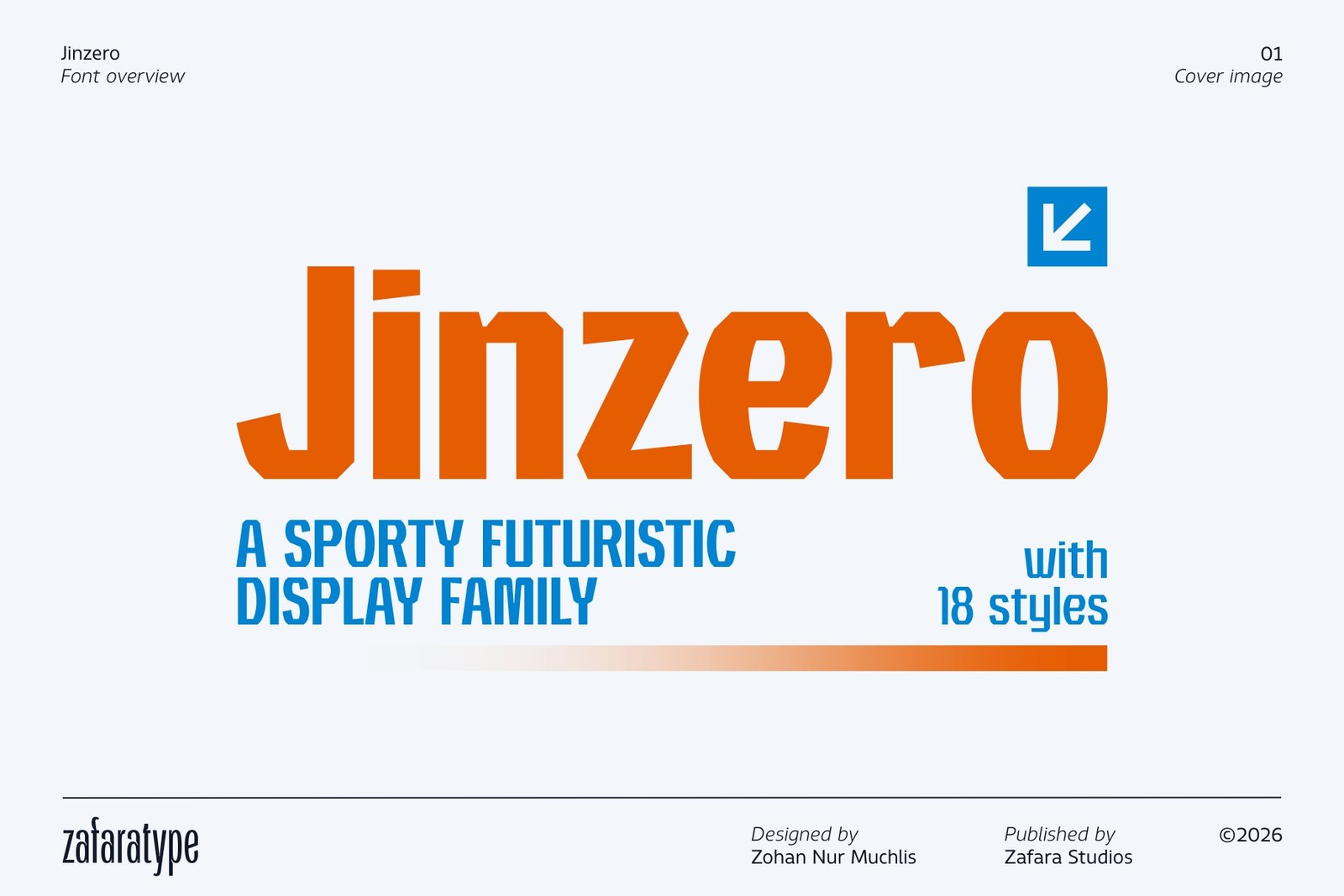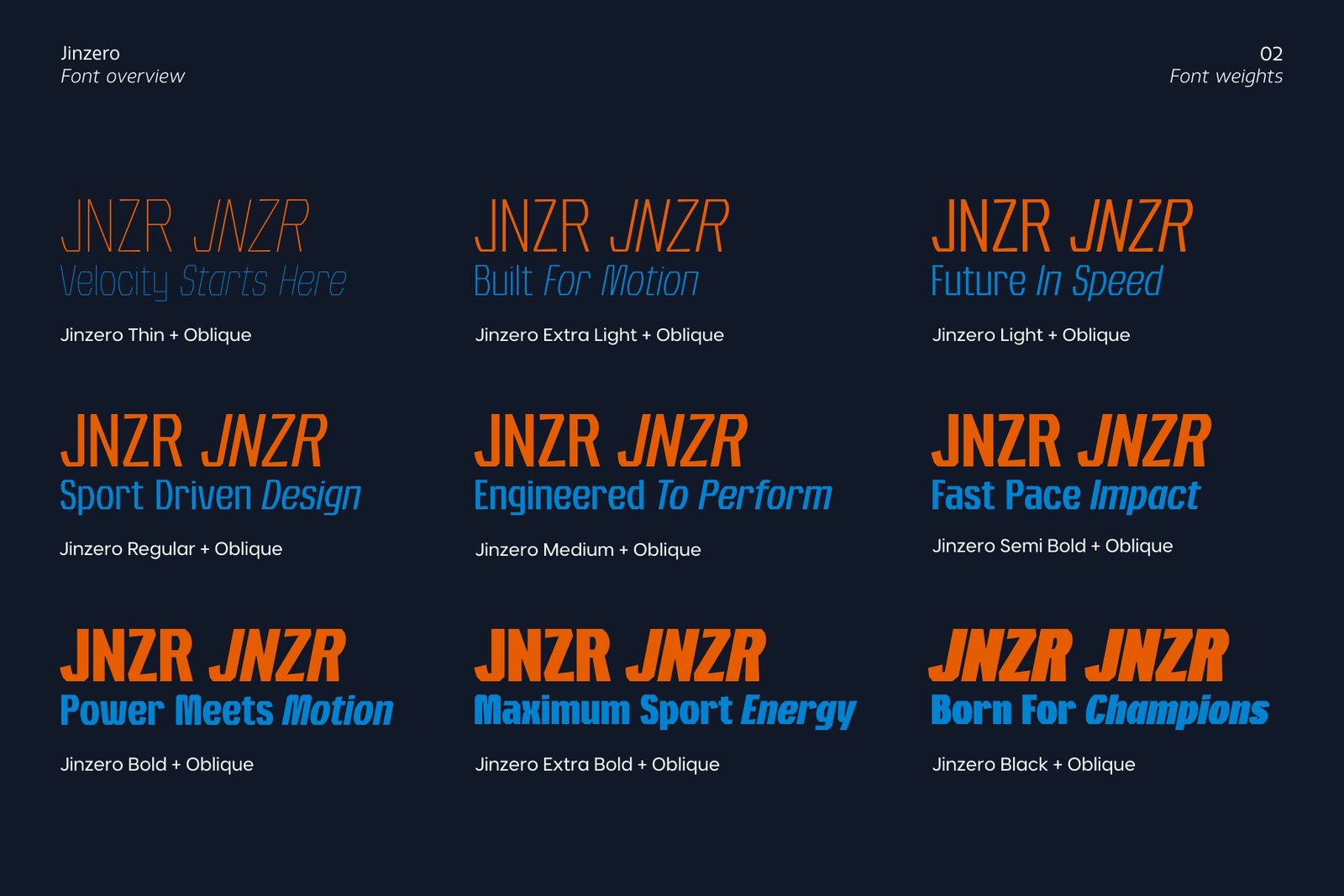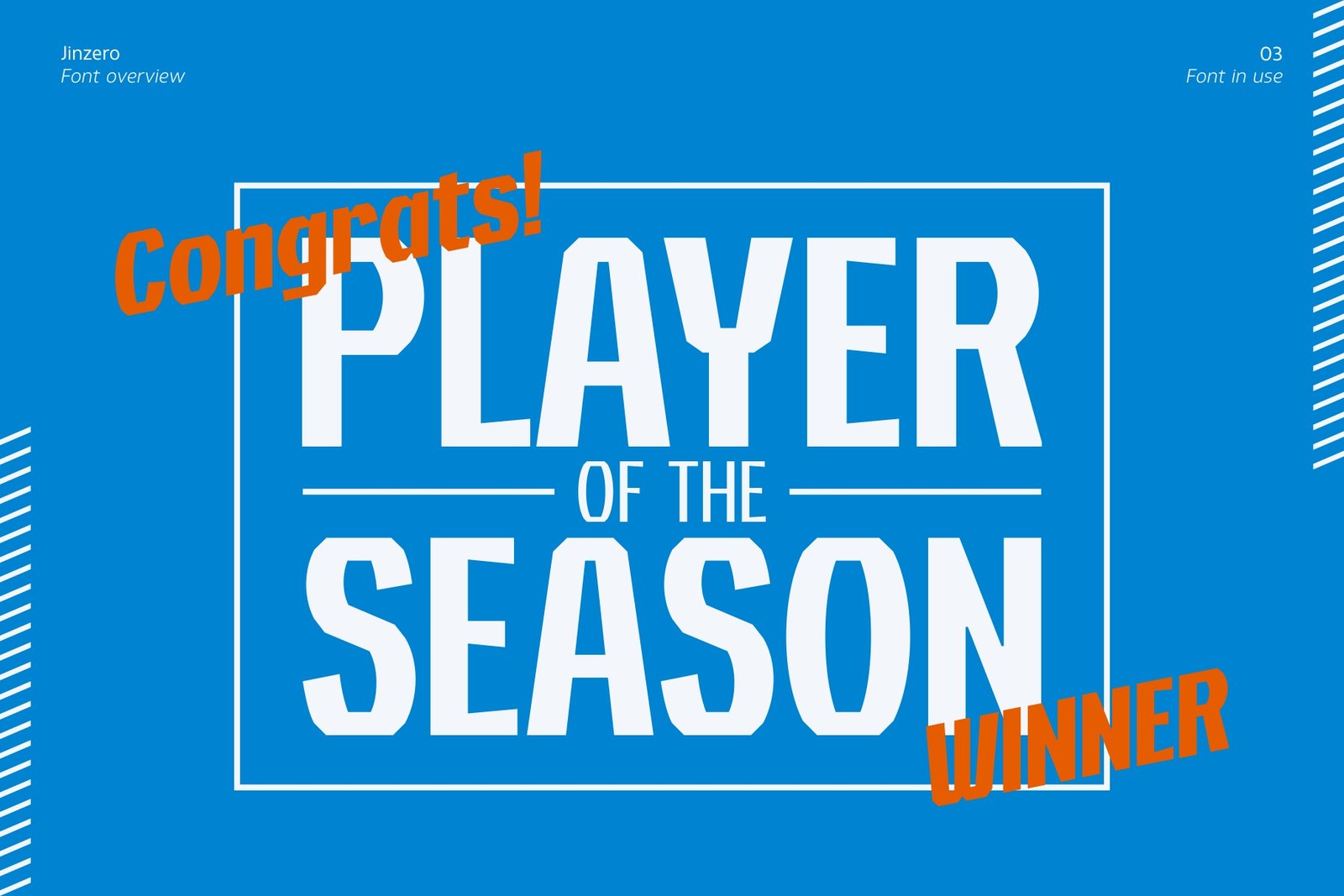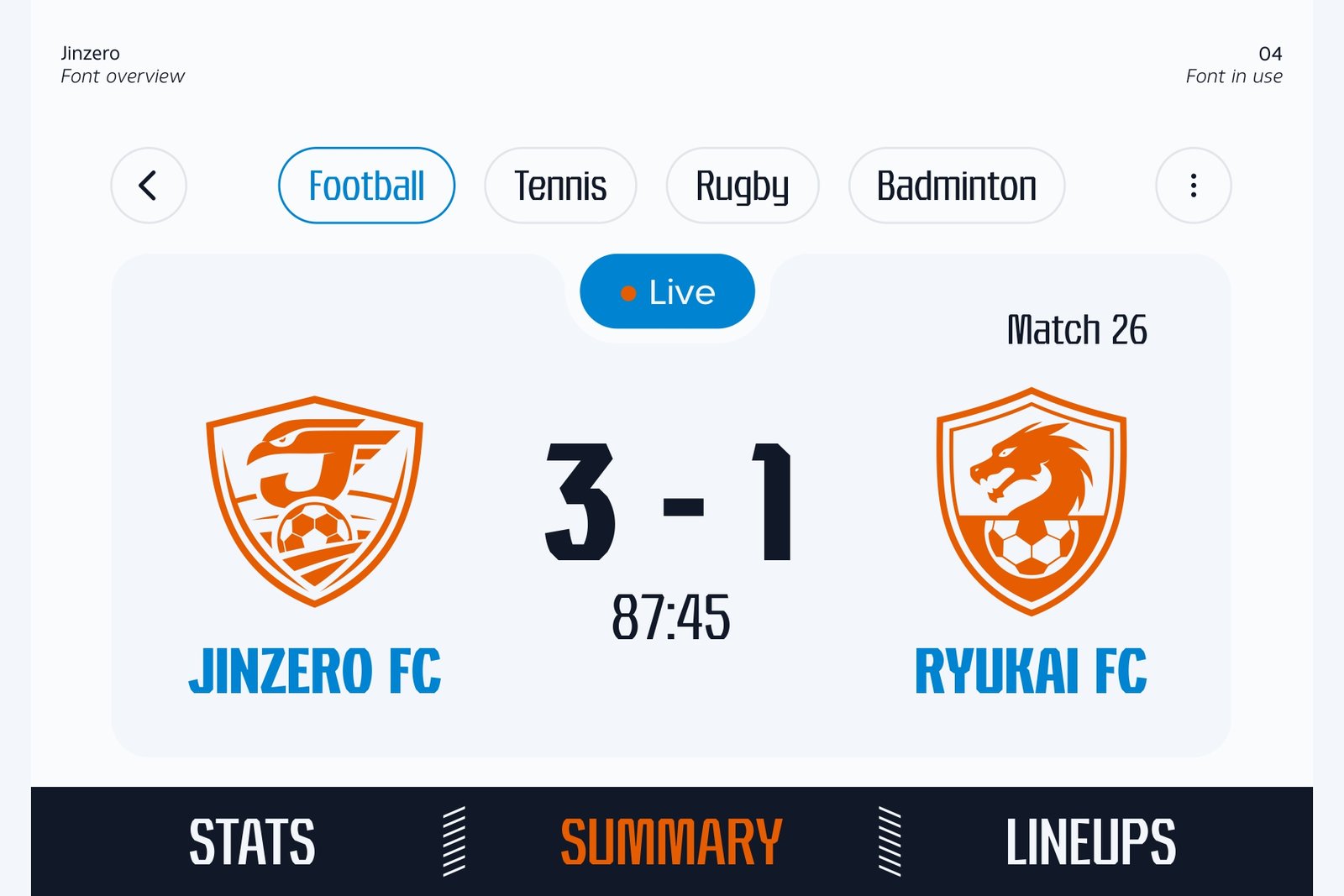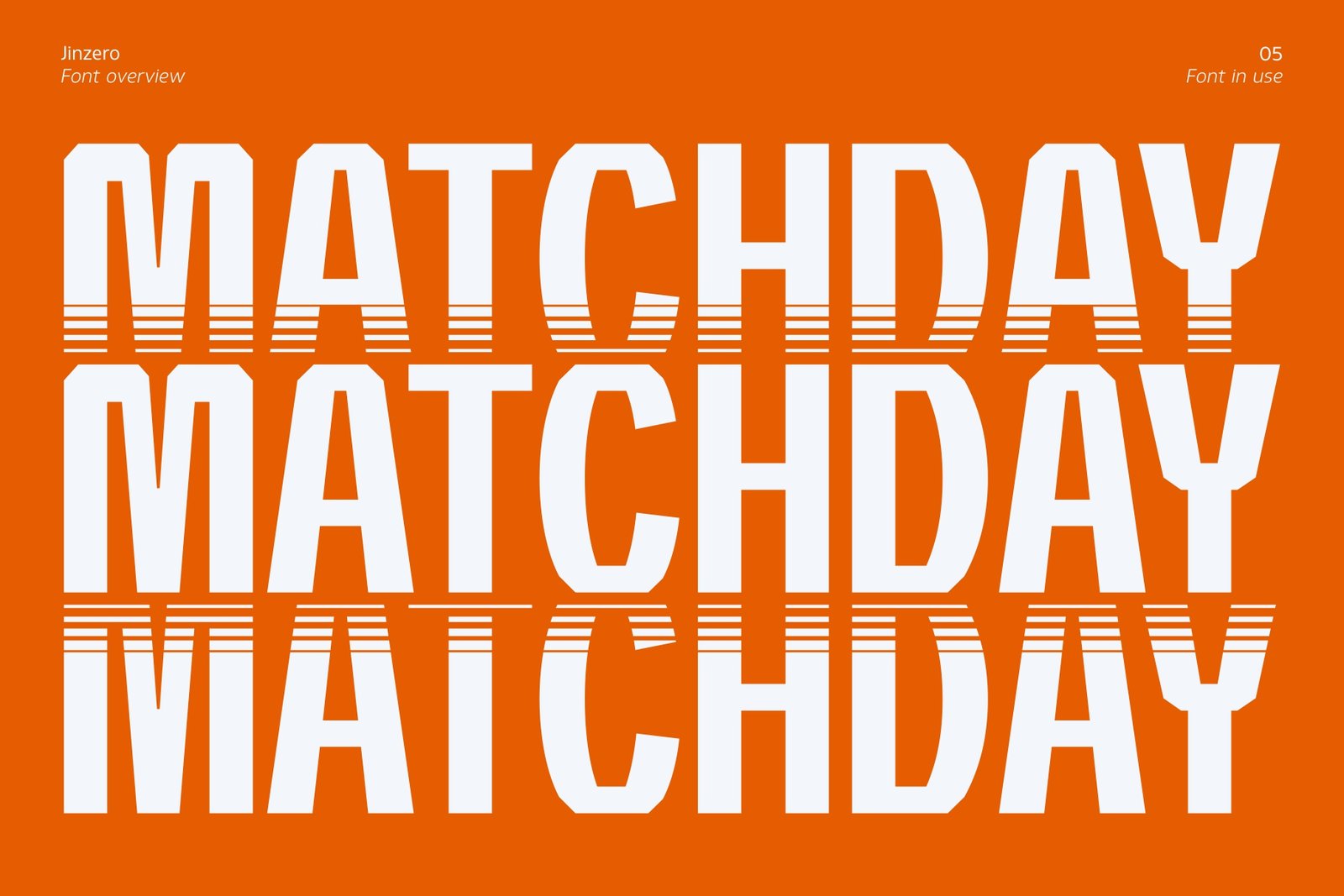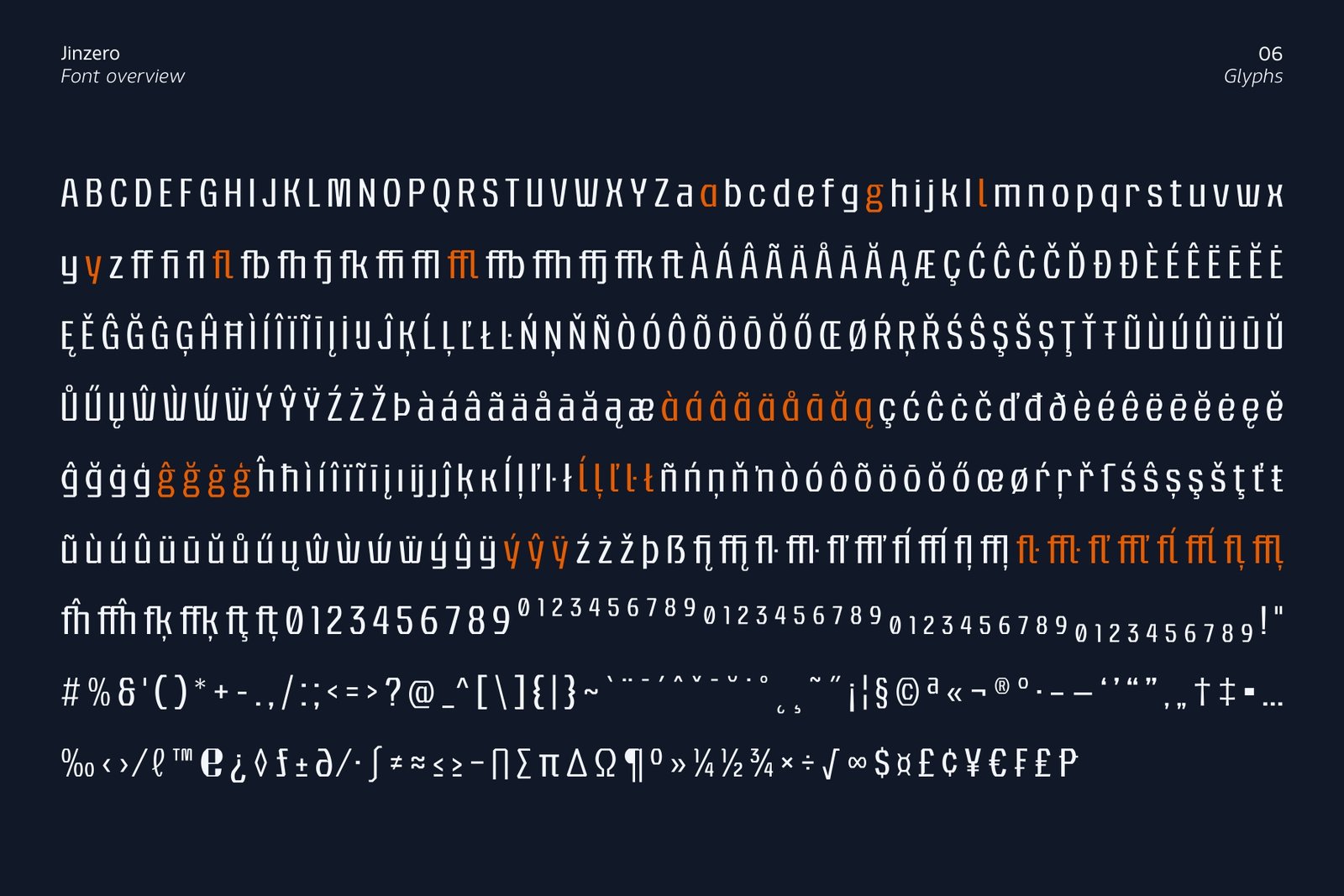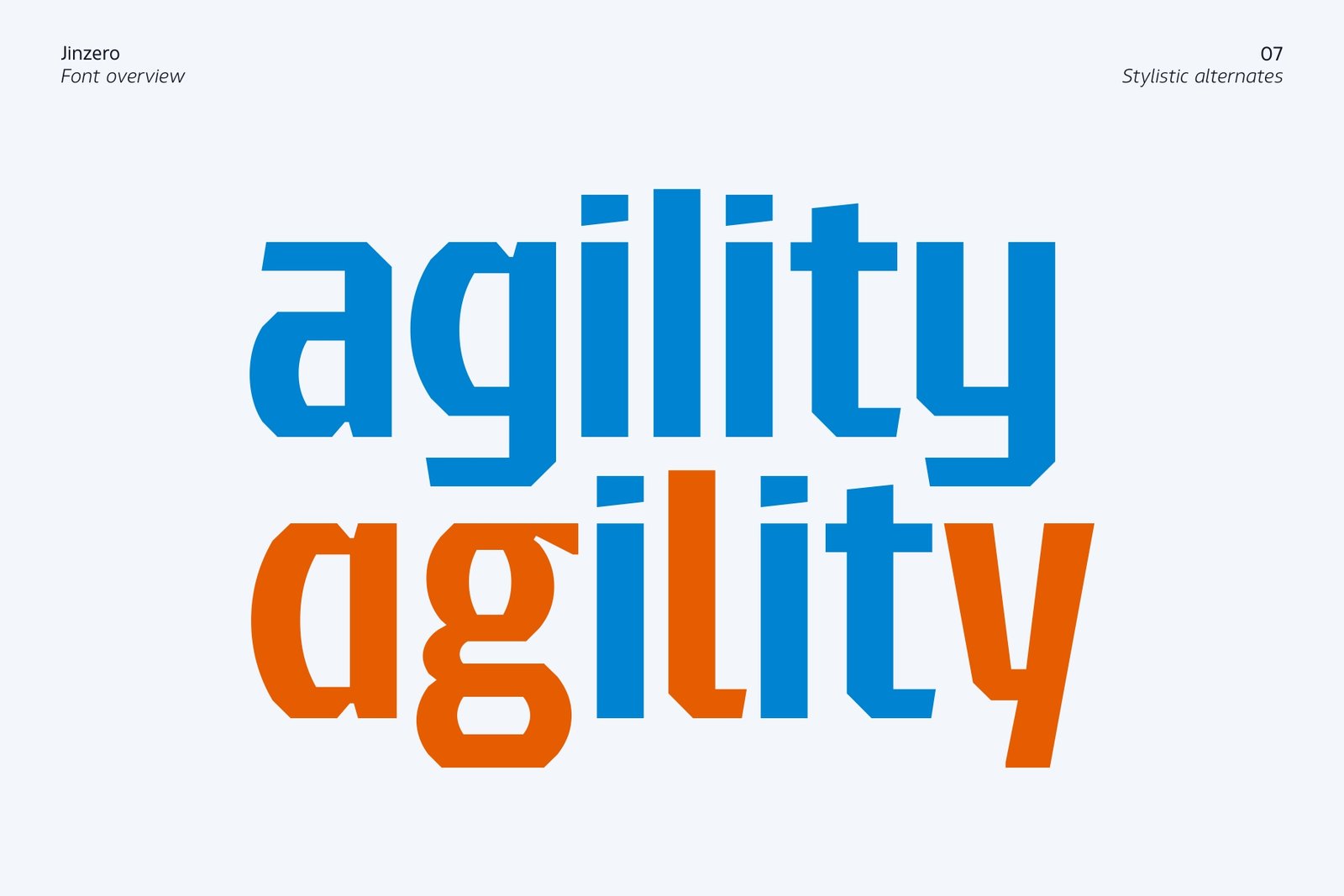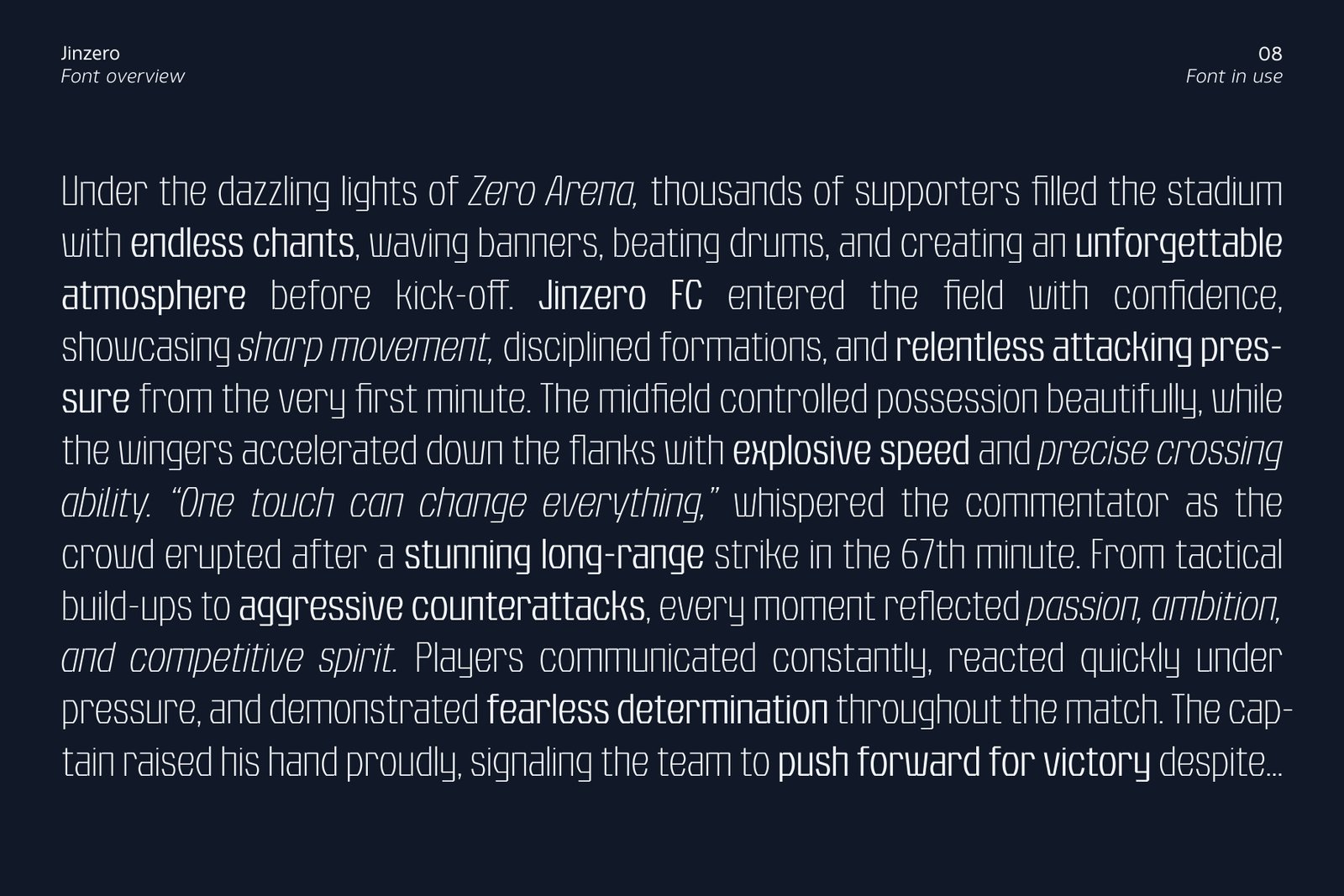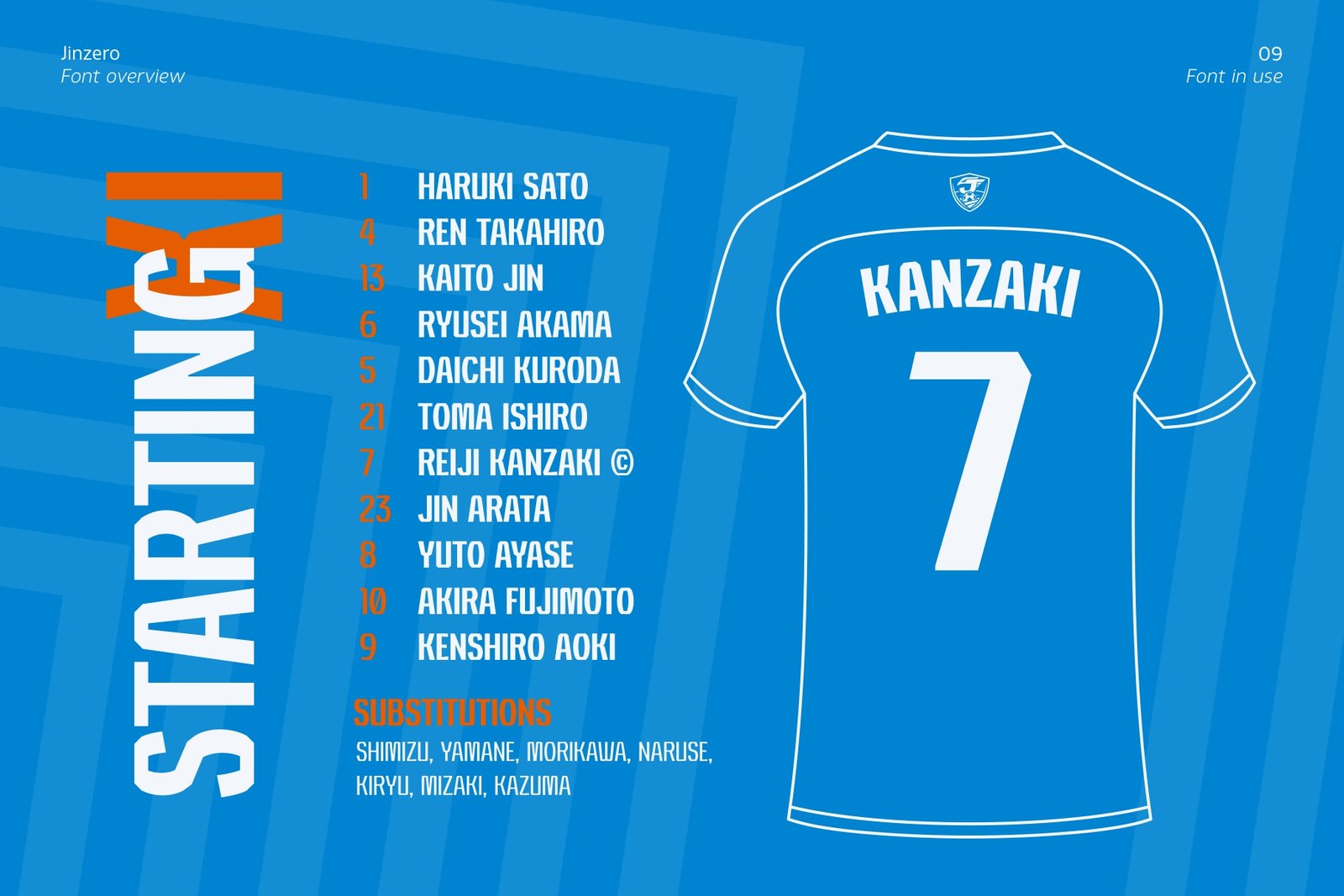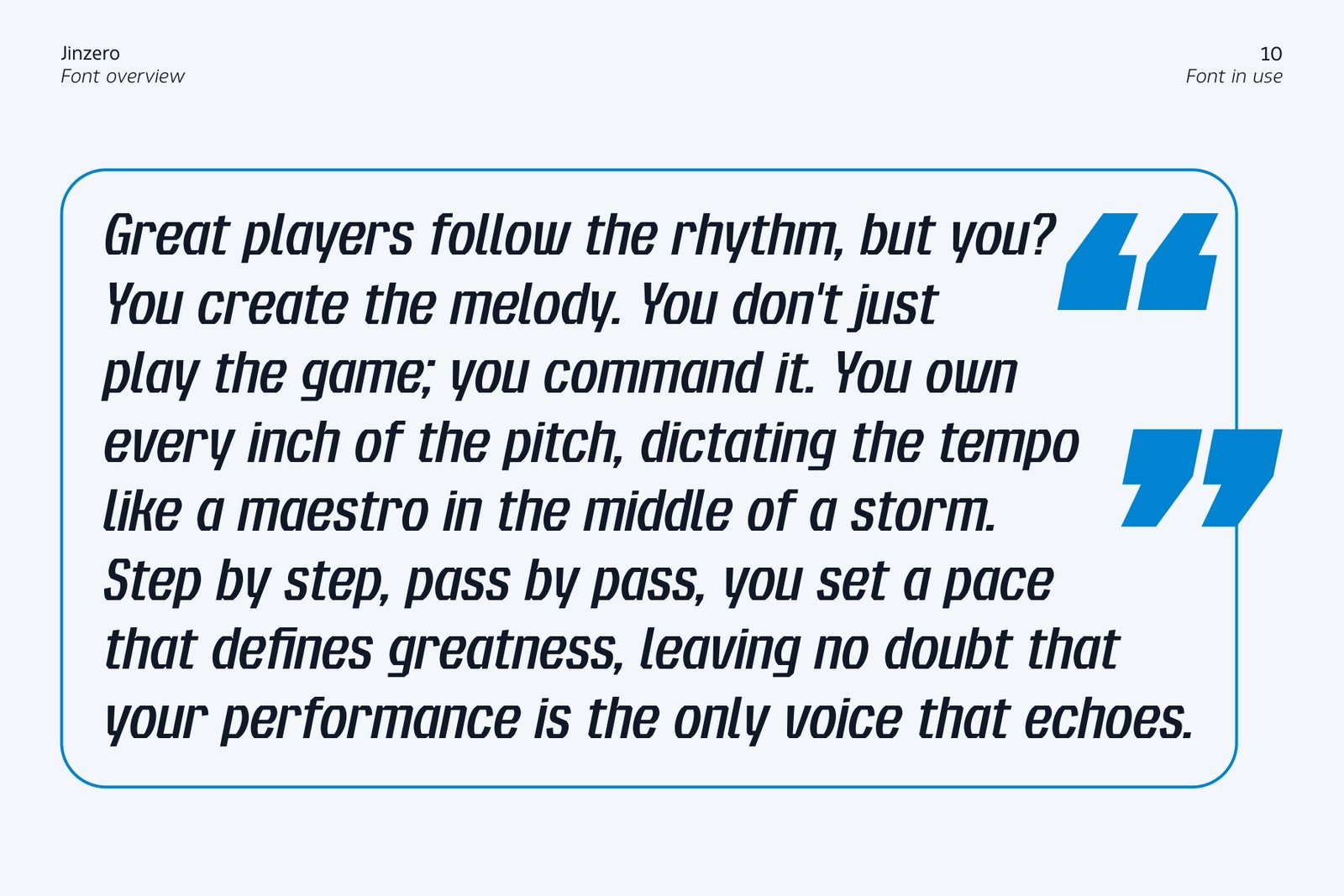
Jinzero font cover image displaying a sporty futuristic display family with 18 styles by Zafaratype.
A grid showcasing Jinzero font weights from Thin to Black alongside their matching oblique styles.
A blue sports poster concept using Jinzero font featuring the text Player of the Season Winner.
A mobile app interface displaying football match stats and team names using Jinzero font.
Bold white text repeating the word Matchday on a vibrant orange background using Jinzero font.
The complete set of 517 glyphs for Jinzero font showing characters, numbers, and symbols.
The word agility displayed in blue and orange showing the stylistic alternates of Jinzero font.
A paragraph of sports editorial text set in Jinzero font on a dark navy background.
A sports graphics mockup showcasing a starting XI line-up and a football jersey nameplate using Jinzero font.
An inspirational quote written in an oblique style of Jinzero font within a clean bordered frame.
An orange infographic chart showing the OpenType features of Jinzero font including ligatures, fractions, alternates, and case-sensitive forms.
A display of various European words showcasing Jinzero font’s extensive Latin-based multilingual language support.
Jinzero is a sporty, futuristic display font family. It brings high energy, speed, and a striking visual impact through its bold, condensed structure. The design features sharp geometric cuts and dynamic proportions. It radiates a confident athletic attitude while maintaining excellent clarity and balance.
Its tall construction and compact spacing create a commanding presence. Therefore, it works exceptionally well for esports visuals, bold headlines, and posters. It also fits sportswear branding, racing themes, tech campaigns, and contemporary display designs. This typeface combines aggressive forms with clean geometry to deliver a competitive, energetic, and forward-looking personality.
The family features 18 distinct styles. It includes 9 upright and 9 oblique variants ranging from Thin to Black. This complete range gives you incredible flexibility. You can easily build layered typography, striking hierarchies, and dynamic compositions across any creative project.
The designer carefully crafted every style for consistency. Each style maintains a cohesive rhythm while adapting effortlessly to bold layouts and modern branding systems. The oblique styles inject extra motion and intensity. This makes the family particularly perfect for fast-paced visual identities and futuristic concepts.
Jinzero
Jinzero blends bold condensed structure with sharp geometric cuts. A versatile family of 18 styles (Uprights & Obliques) built for headlines, sports branding, and modern visual identities that demand high energy and clarity.